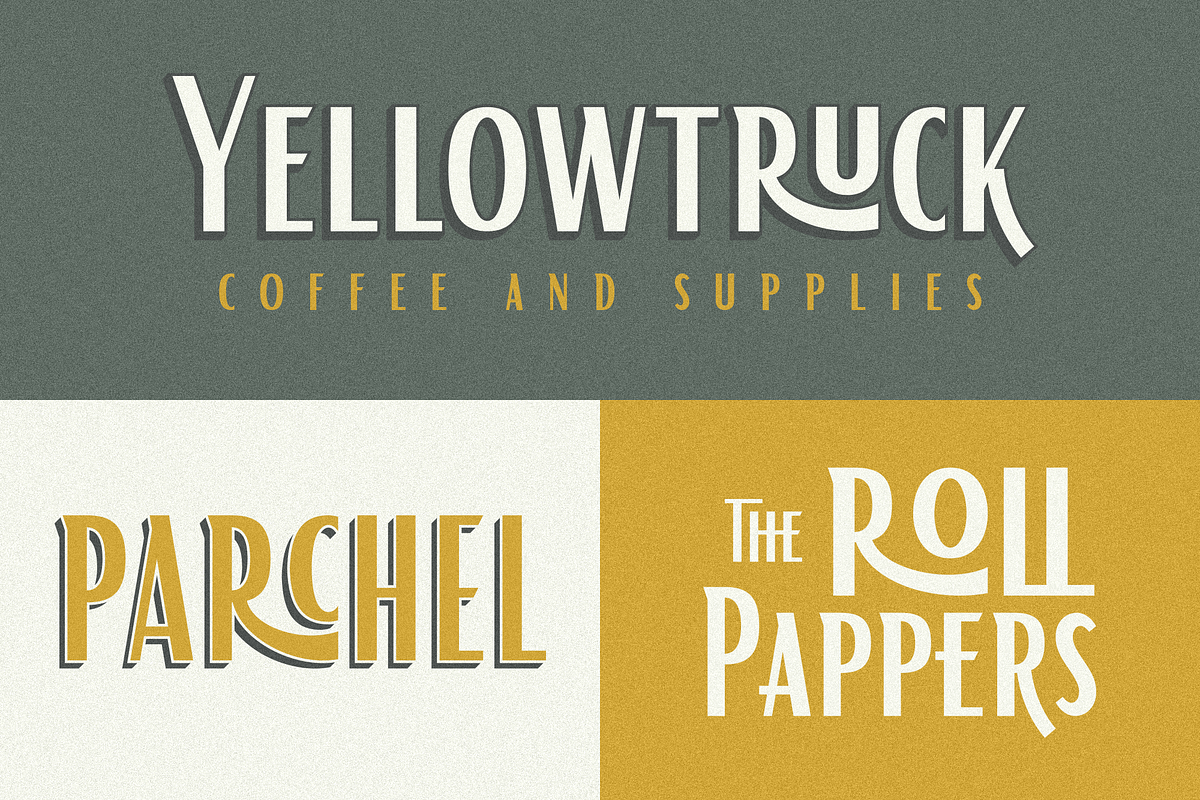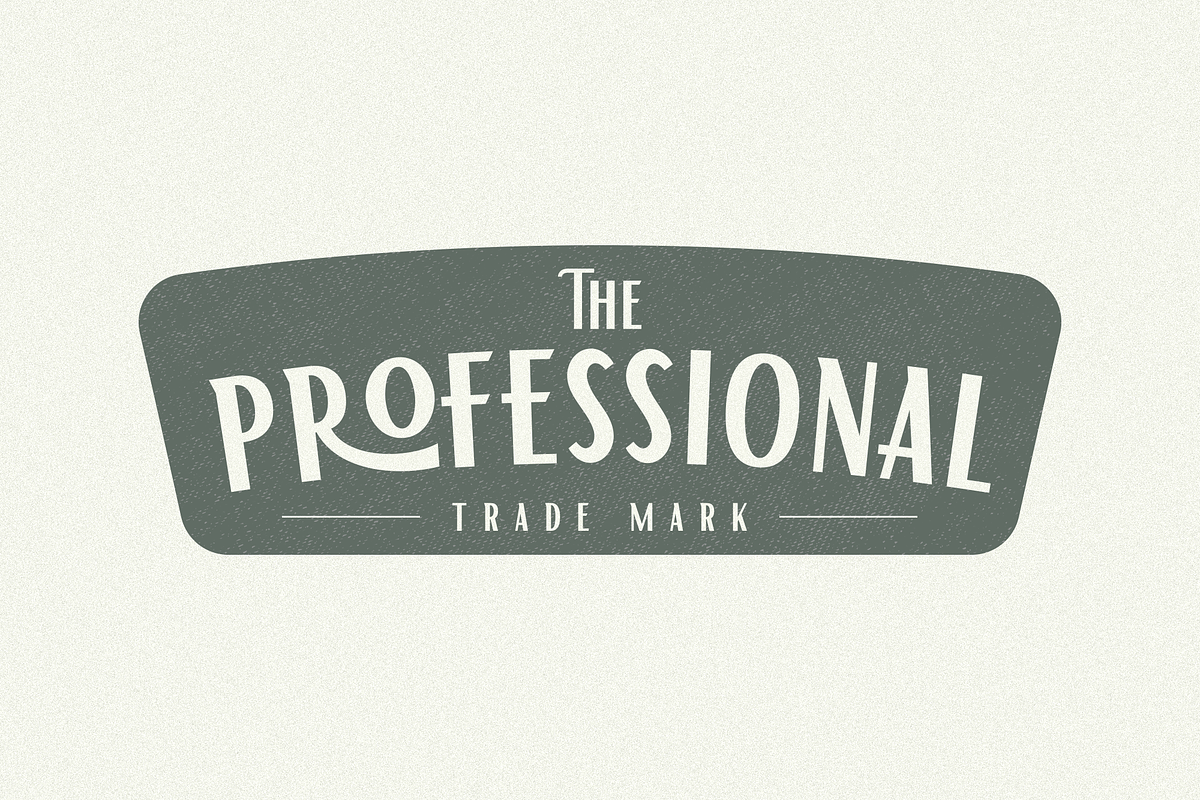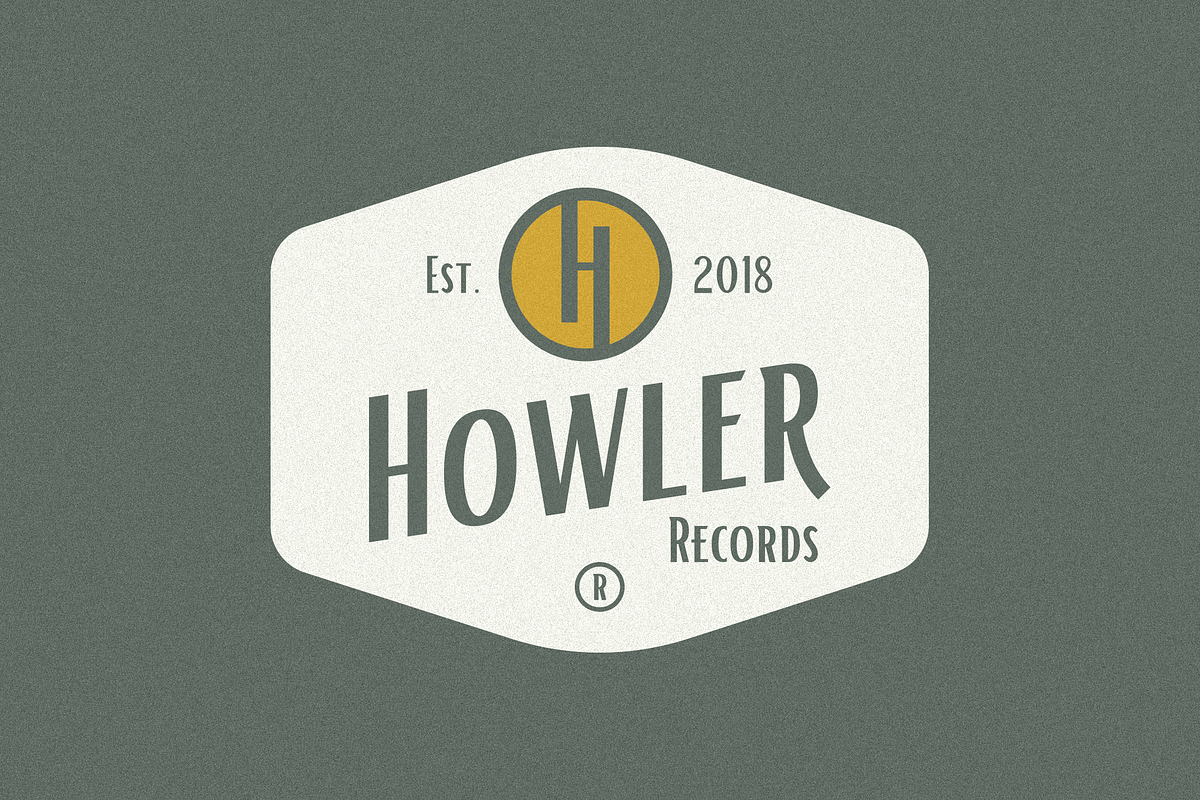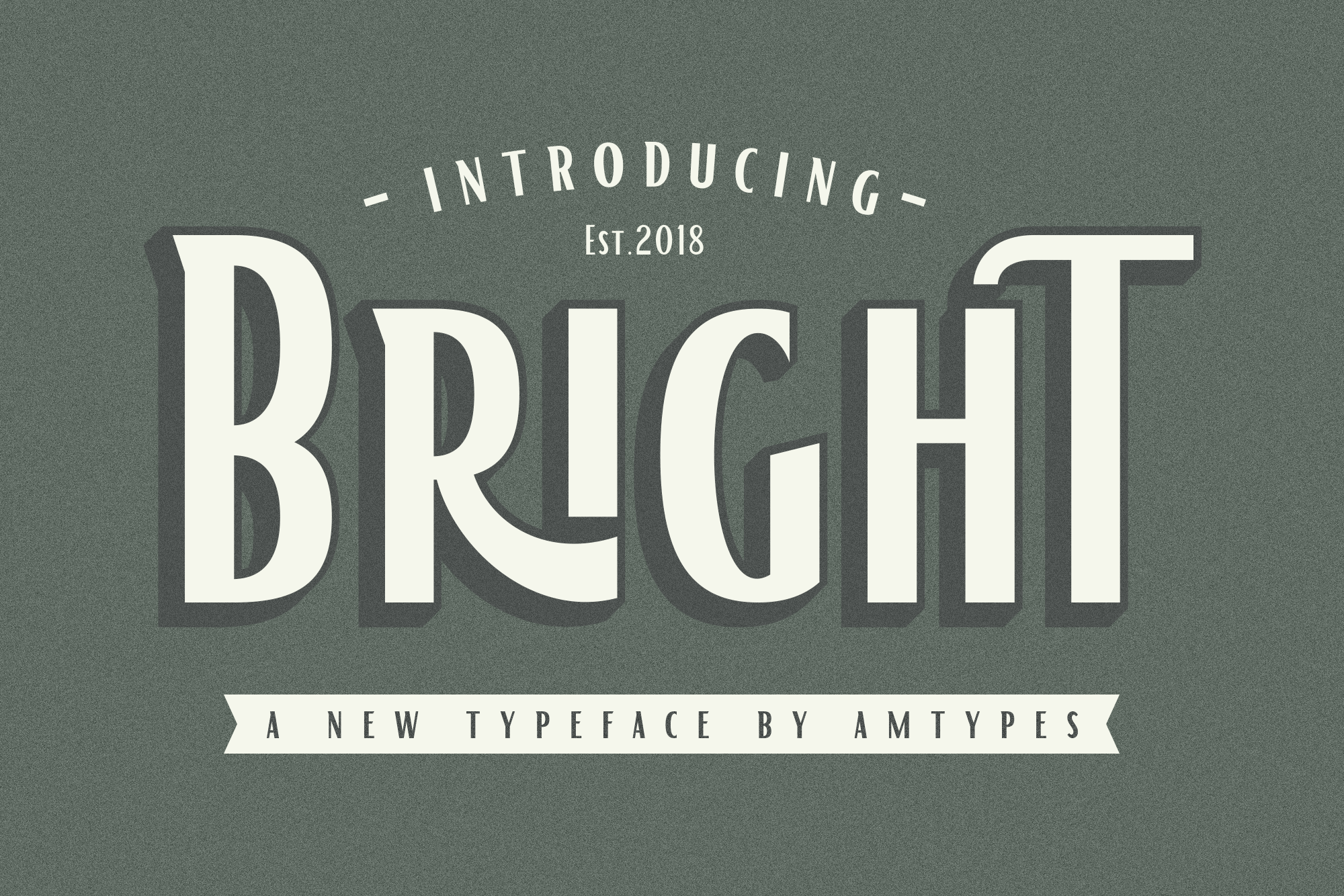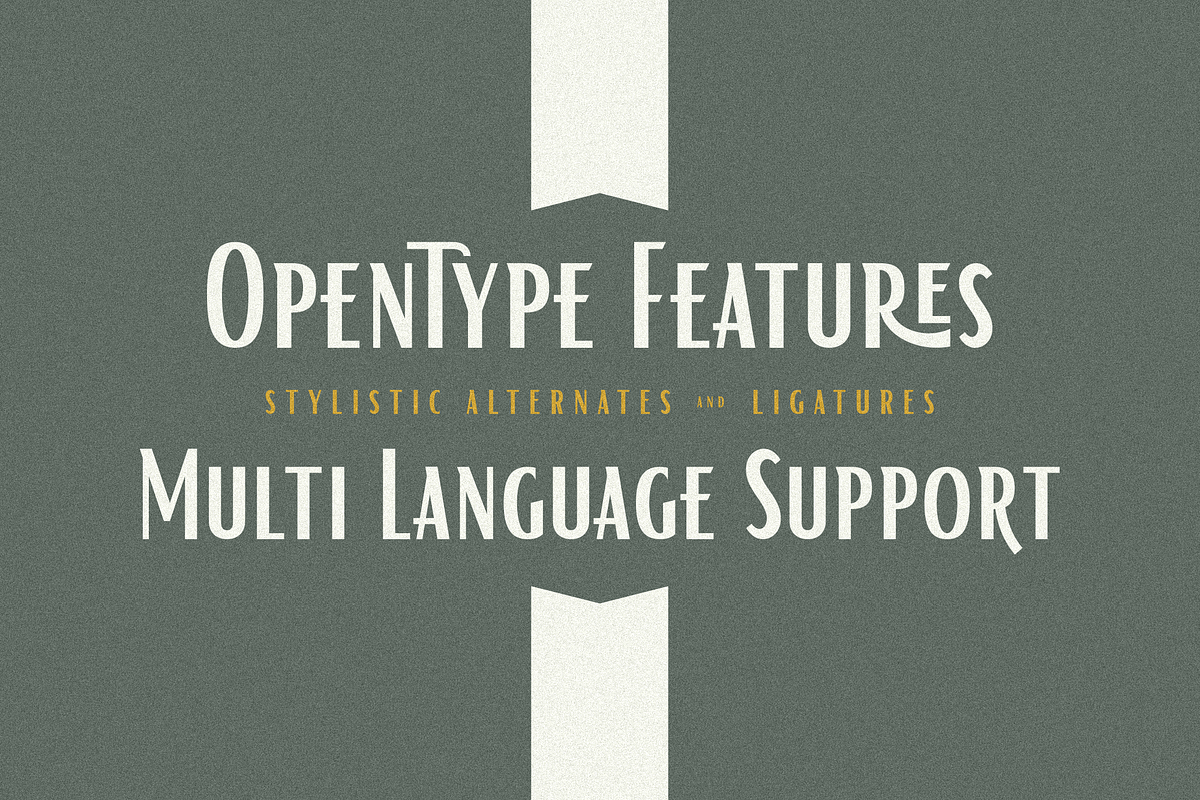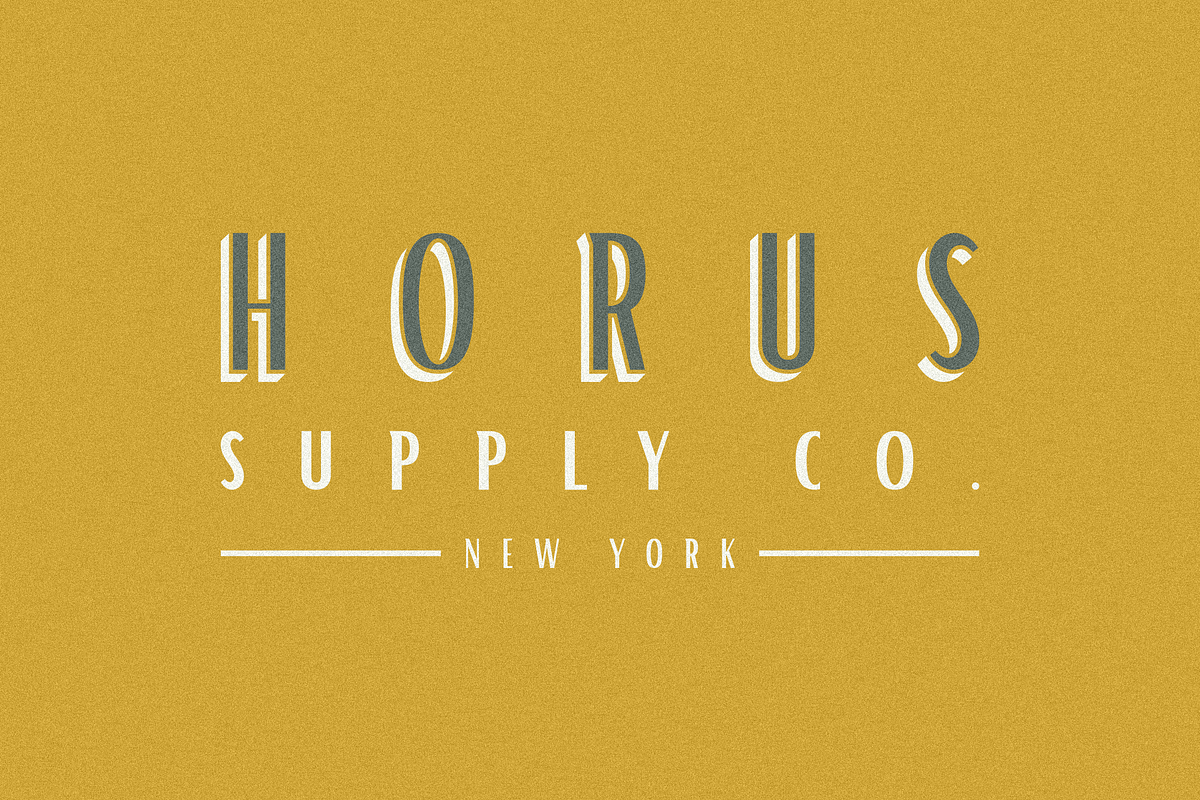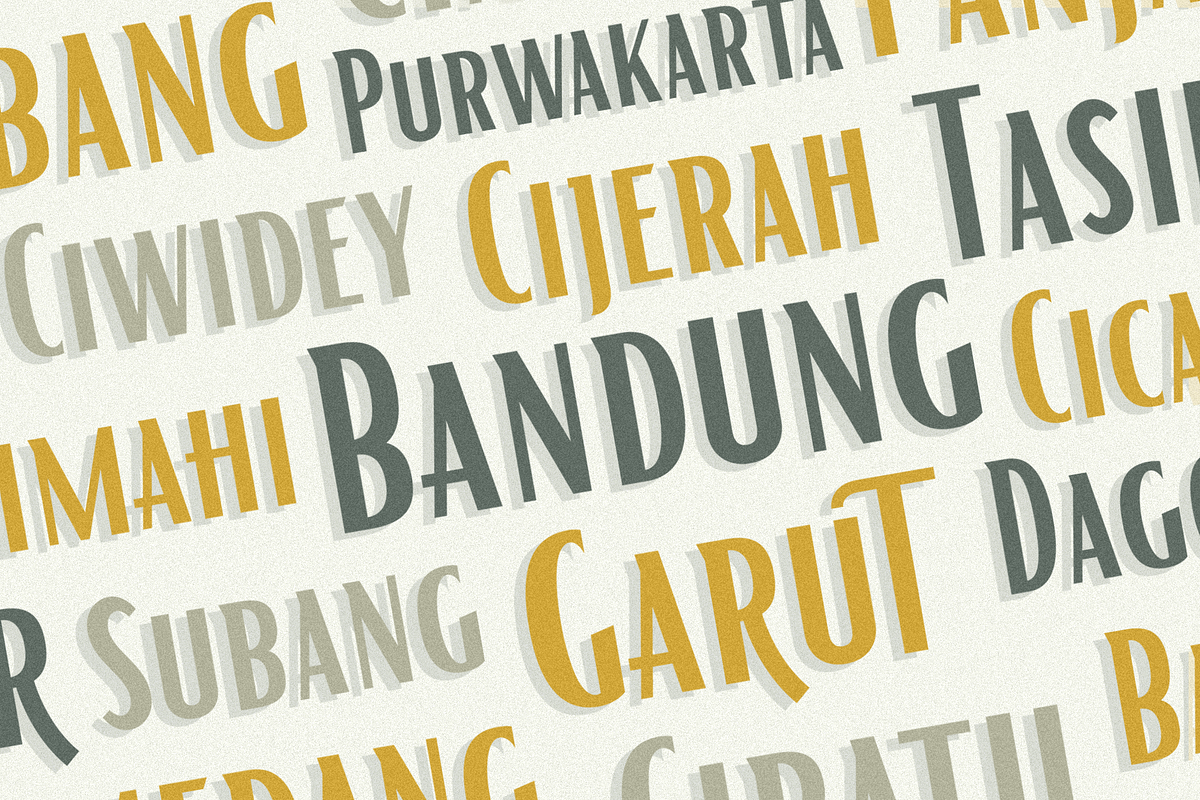
Bright Font
Bright is a sans serif typefaace with classic touch. This font has alternate characters, ligatures and multi language support. Bright font is perfect for the classic design logo, branding or product packaging, signage and more other creative project.